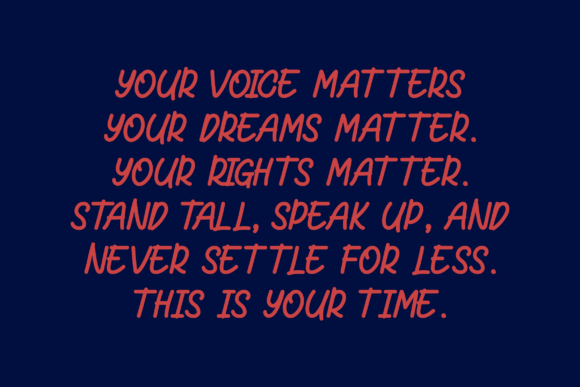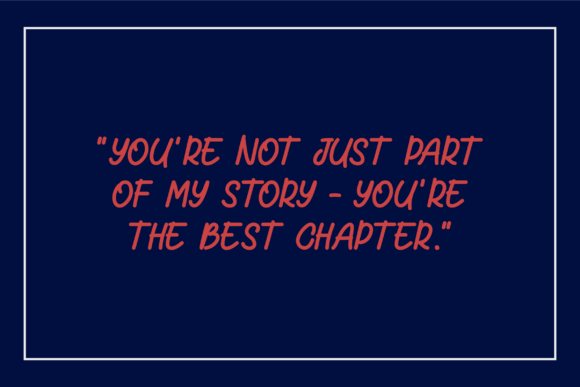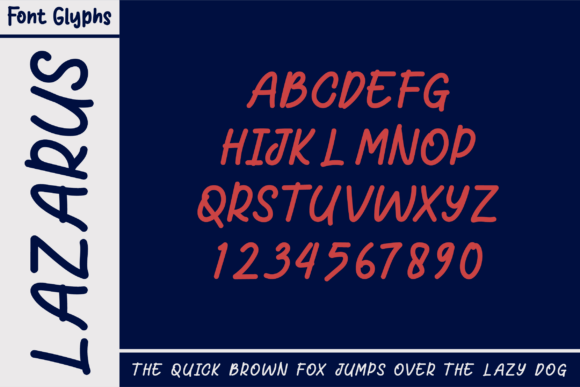
Introduction to Lazarus Font
As designers, we’ve all been there – staring at a blank canvas, trying to bring a concept to life. But what happens when that concept needs a little something extra to make it truly special? That’s where the Lazarus Font comes in – a beautifully crafted, handwritten font that adds a touch of warmth and personality to any design.
Imagine a font that combines the elegance of a high-quality design resource with the approachability of a handwritten note. The Lazarus Font does just that, offering a unique and versatile style that’s perfect for branding, packaging, social media, and print projects. With its transparent background and high-quality design, this font is a valuable addition to any designer’s toolkit – and the best part? It’s available for a free download, making it an accessible resource for creatives of all levels.
Whether you’re working on a creative project or just need a little inspiration, the Lazarus Font is sure to make an impact. Its charming, personal touch adds a level of authenticity to any design, making it a valuable asset for designers who want to stand out from the crowd.
Key Features of Lazarus Font
- High-quality, unique design ideal for creative projects and personal use.
- Perfect for use in graphic design, digital art, and other creative projects where a unique, high-quality font is required.
Honest Review: Lazarus Font
I recently had the chance to work with the Lazarus Font, and I must say it’s been a game-changer for my creative projects. The font’s sleek, modern design is perfect for creating high-quality visuals that stand out from the crowd.
- ✨ Its transparent background allows for seamless integration with various design elements, giving you more creative freedom.
- ✨ The font is highly versatile and can be used for a wide range of creative projects, from logos to editorial content.
- ⚠️ The font may not be suitable for very small text sizes, as it can appear pixelated.
- ⚠️ Some users may find the font’s modern design too trendy, which can be a concern for more traditional or conservative design projects.
Overall, I’m thoroughly impressed with the Lazarus Font. Its high quality and versatility make it a valuable addition to any designer’s toolkit. Whether you’re working on a high-end creative project or a more casual design endeavor, the Lazarus Font is definitely worth checking out.
Lazarus Font
Getting the Most Out of Lazarus Font
To get the most out of Lazarus Font, use it in conjunction with a transparent background to create a high-quality design. Experiment with different font sizes, colors, and styles to add visual interest to your design. You can also use Lazarus Font in a variety of creative projects, from posters to business cards.
Common Use Cases for Lazarus Font
Lazarus Font is perfect for designers looking for a free download of a high-quality font. It’s ideal for use in creative projects that require a unique and eye-catching design. Some common use cases include branding materials, advertising campaigns, and social media graphics.
Alternatives to Lazarus Font
Arial Rounded
Arial Rounded is a sans-serif font designed for clear readability. It is a popular choice for digital displays, websites, and creative projects. This font is available for free download and offers a high-quality design resource for designers.
Use Arial Rounded when you need a clean and modern look for your text. It’s ideal for headings, titles, and short paragraphs. Compared to Lazarus Font, Arial Rounded has a more rounded appearance, making it suitable for creative projects that require a friendly and approachable tone.